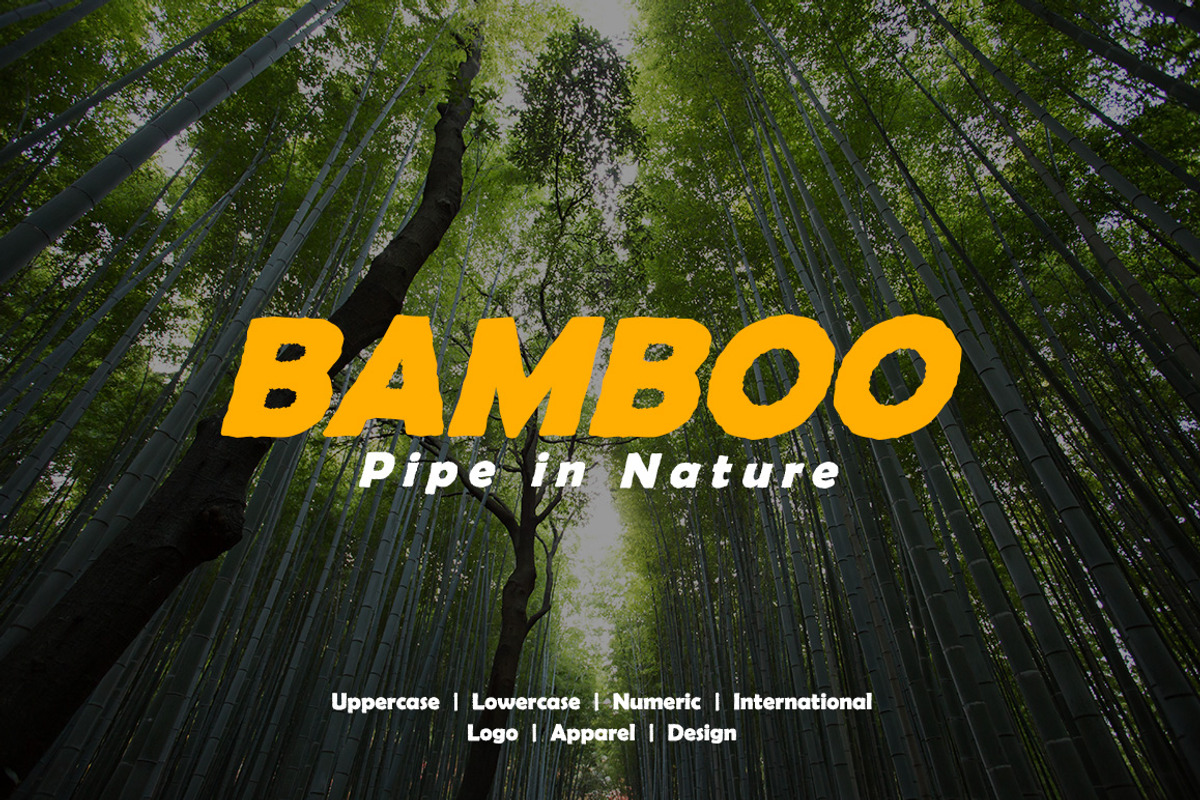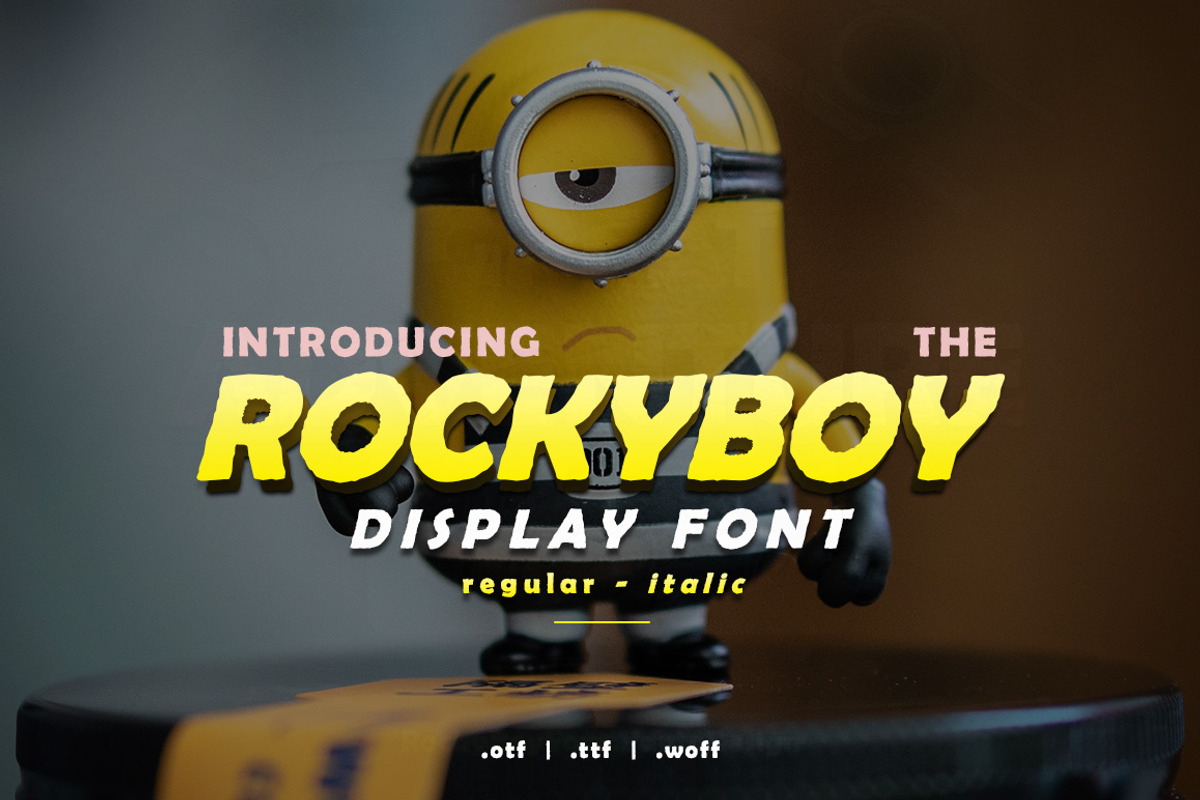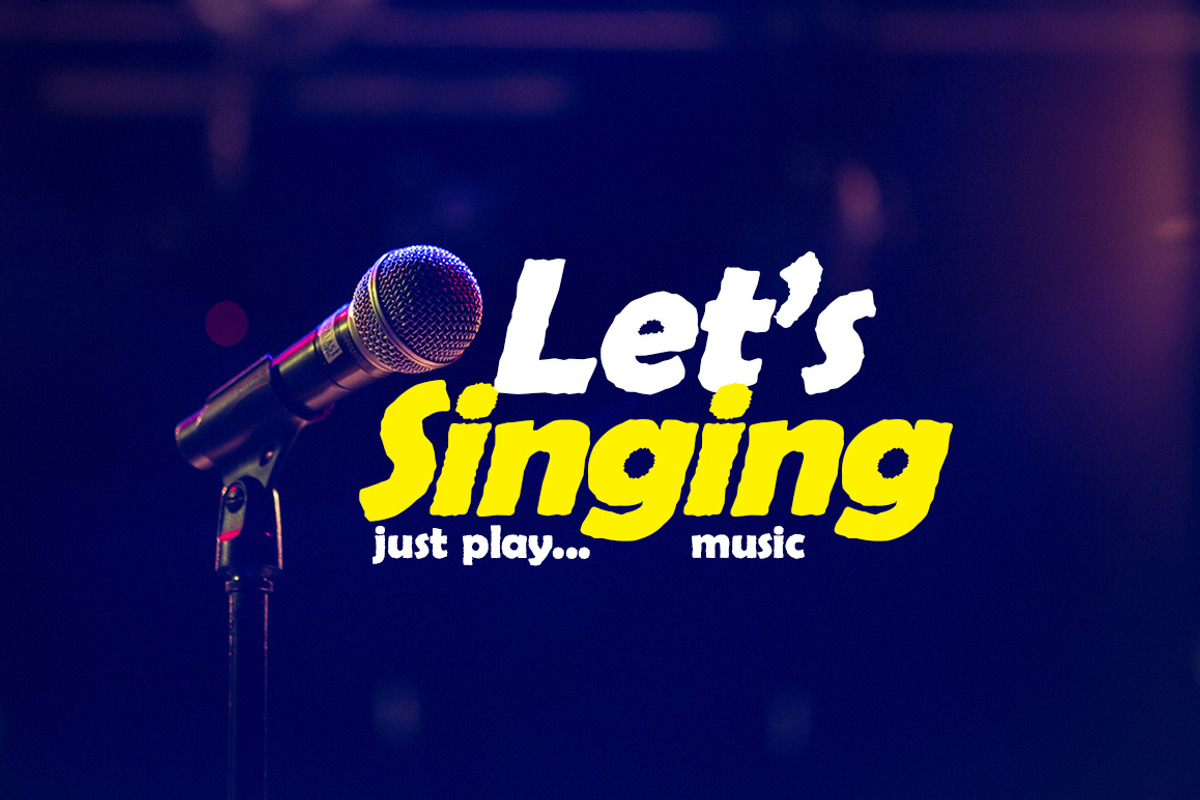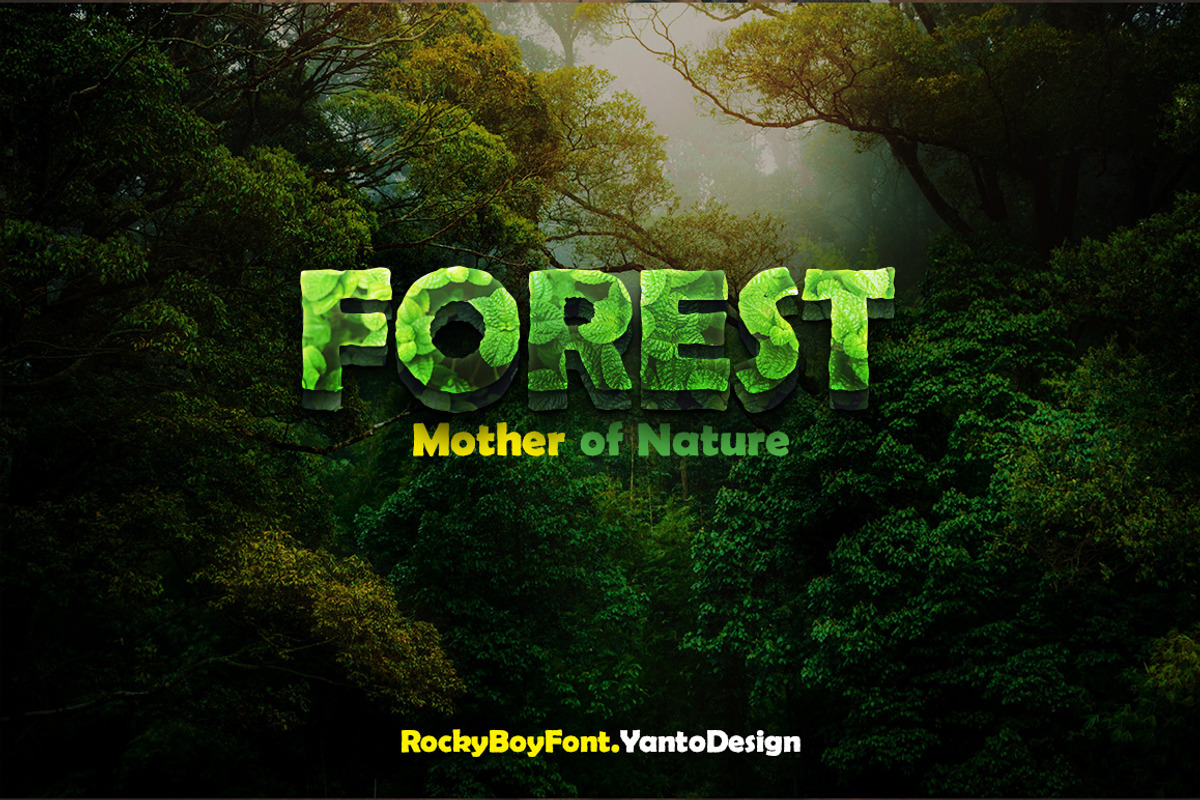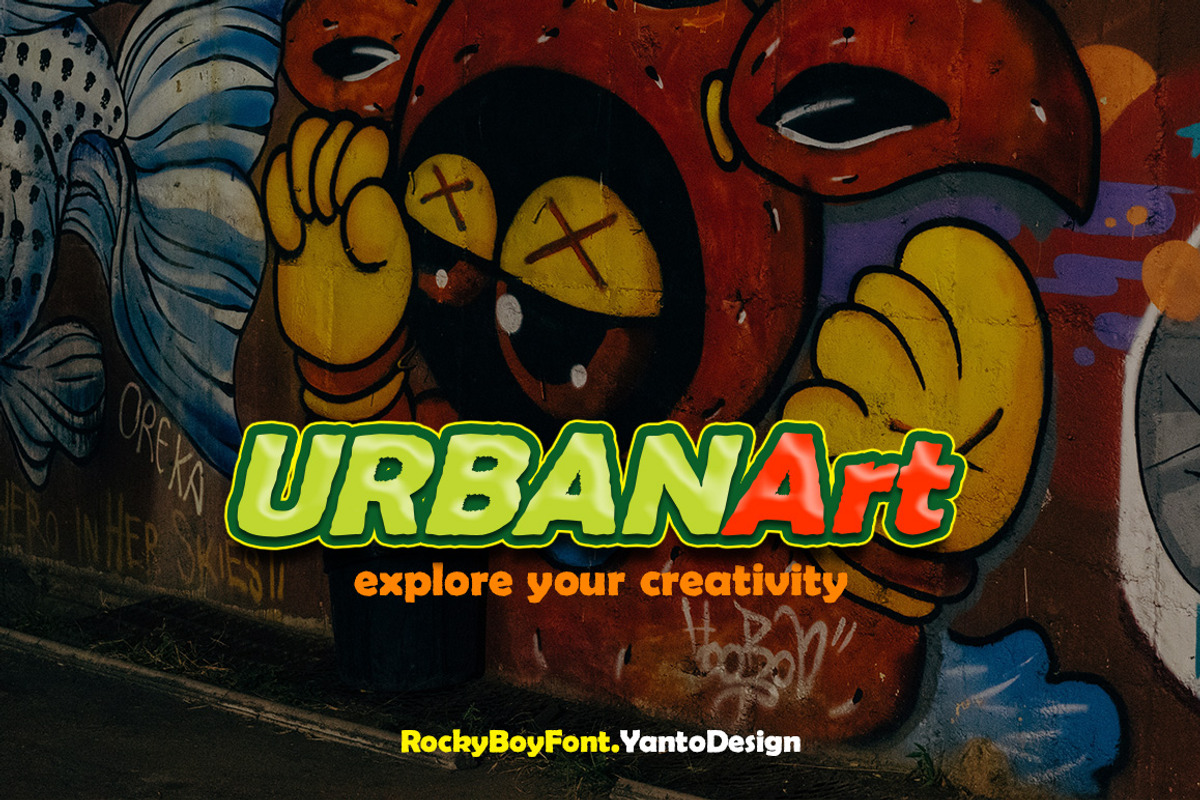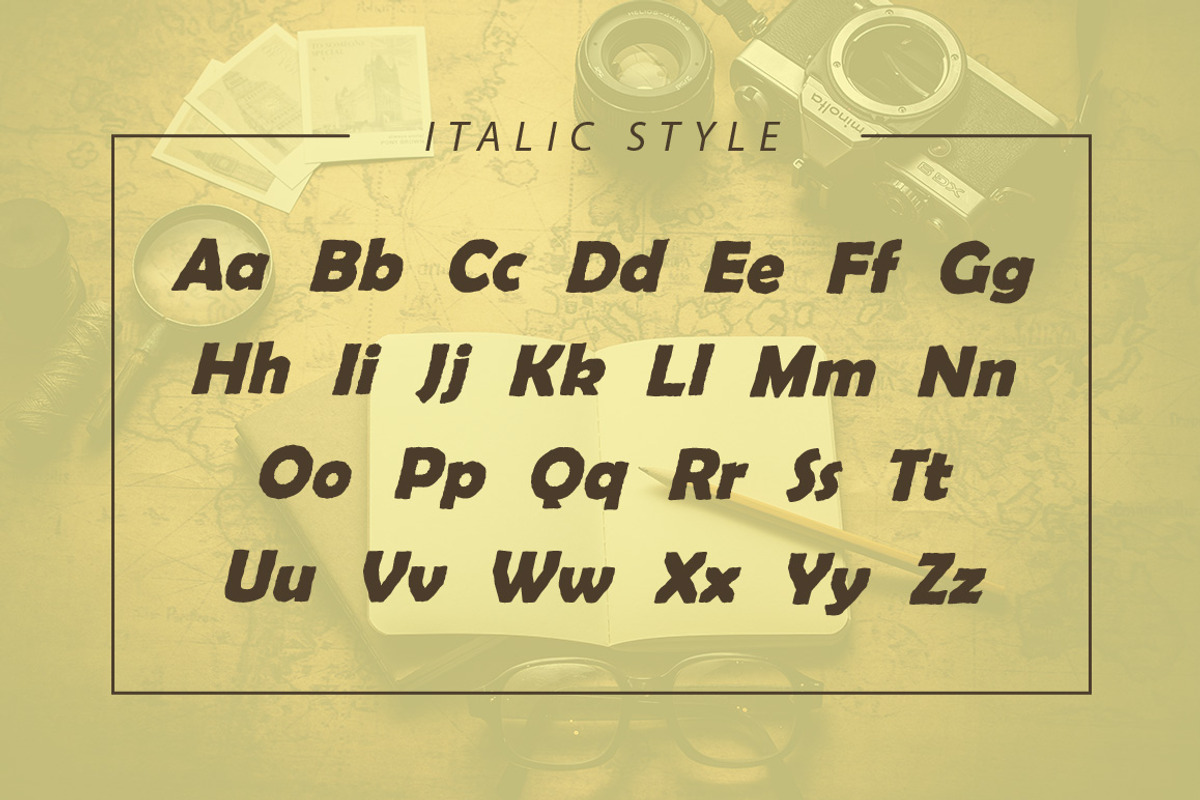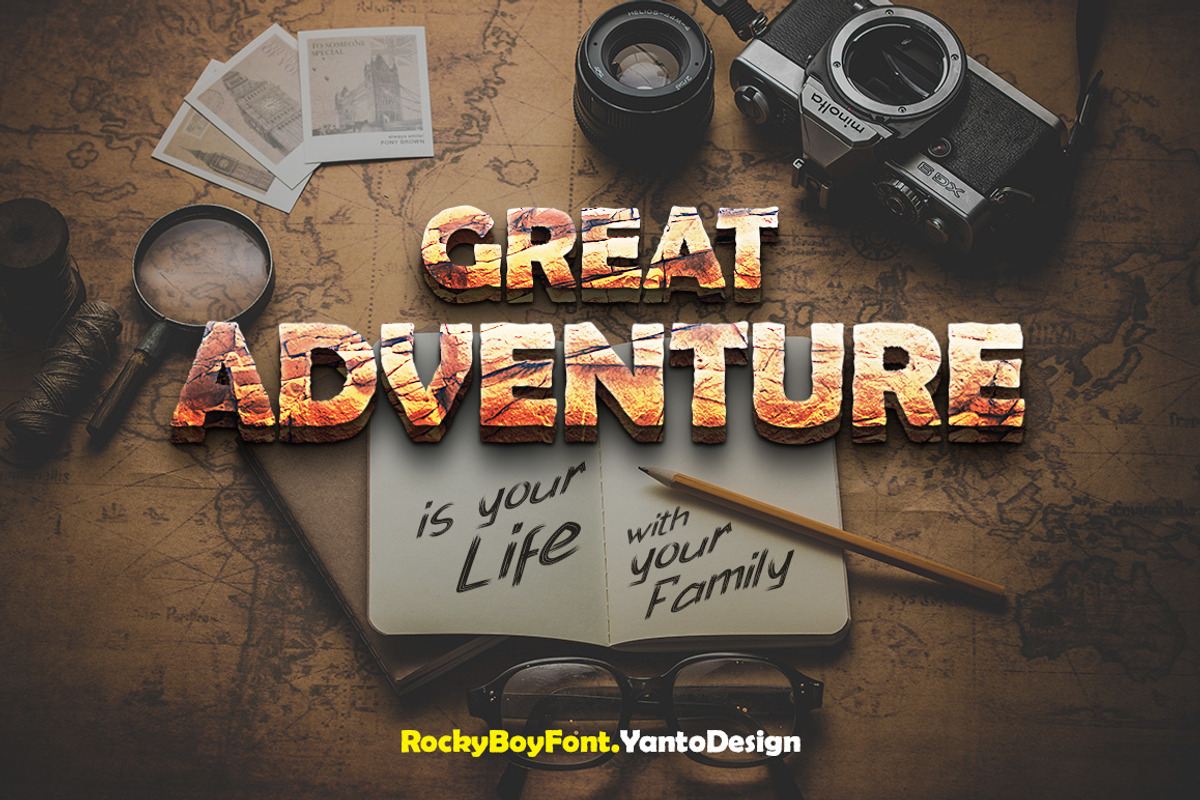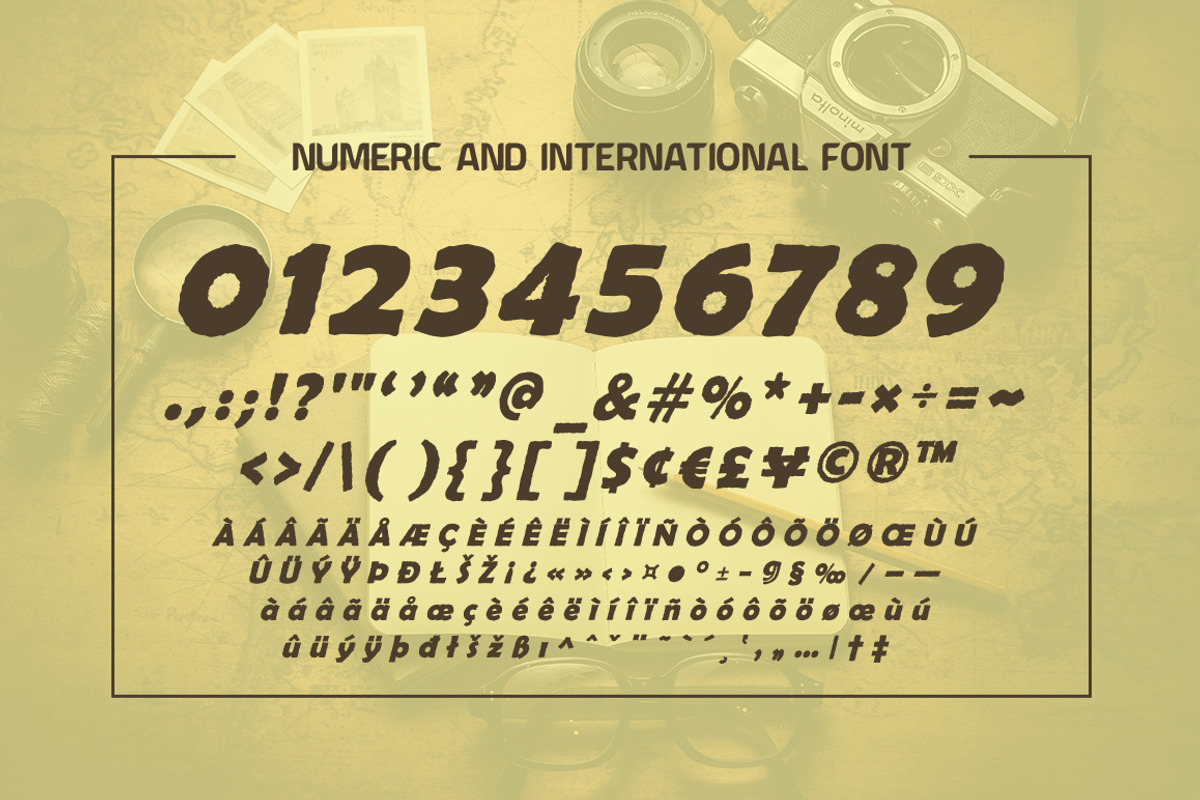
Rocky Boy Display Font
Rocky Boy Display Font very suitable for poster, for logo, music cover, clothing, and many many cool design projects. Rocky Boy Display Font is uppercase and lowercas. Numeric and international font. Regular, and Italic.